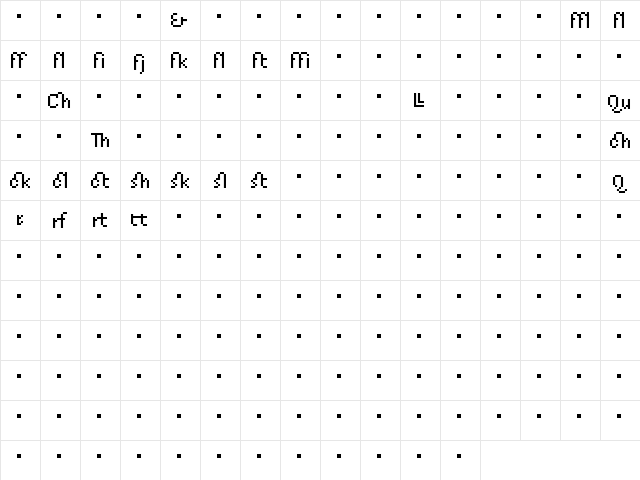
Fundamental-Ligatures Regular
Design Context for Fundamental-Ligatures Typeface
Fundamental-Ligatures trades formality for fun, with bouncy, characterful letterforms that bring warmth and energy to any project.
Font Pairing: Pairs well with a rounded or humanist sans for body copy, maintaining the friendly tone without relying on Fundamental-Ligatures to carry extended reading.
Pro Tip: Use Fundamental-Ligatures at larger display sizes where its expressive character can land. Pair with a clean, simple sans for body copy to maintain readability.